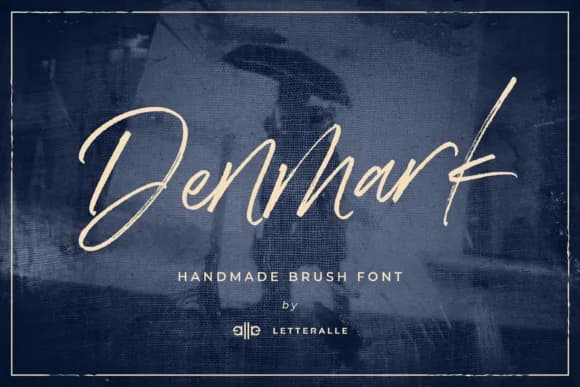
Denmark by Balpirick is a flowing handwritten script defined by assured, contemporary letterforms with personality. Each character moves with natural rhythm and deliberately articulated gestures, building a distinct visual presence that reads as both refined and approachable at the same time. Rather than leaning into fussy vintage references, Denmark creates its own visual identity, making it a strong choice for designers who value authentic handwritten warmth without historical pastiche or excess detail.
This font works across multiple applications and genuine project types. Wedding invitation suites gain immediate visual sophistication when you pair Denmark with supporting typography, delivering elegance without the expected ornate flourishes. Small-batch artisan product labels, craft brewery branding, and boutique skincare packaging all benefit from its balanced stroke weight and distinctive personality. The script also performs remarkably well in social media graphics and custom business cards where readability at smaller sizes matters alongside character. Multiple weights give you control over visual hierarchy and emphasis without forcing you to introduce entirely separate typefaces into your workflow.
Denmark suits any brand or project seeking handcrafted authenticity paired with professional confidence. It's the right choice when your audience expects quality and intentionality in every detail. Find Denmark on Creative Fabrica to add it to your design toolkit.
Denmark Font by Balpirick Font is a script font that shines as a display or heading face. Pair it with a clean sans-serif or serif font for body text β the contrast creates a clear hierarchy while the two styles stay balanced and easy to read.